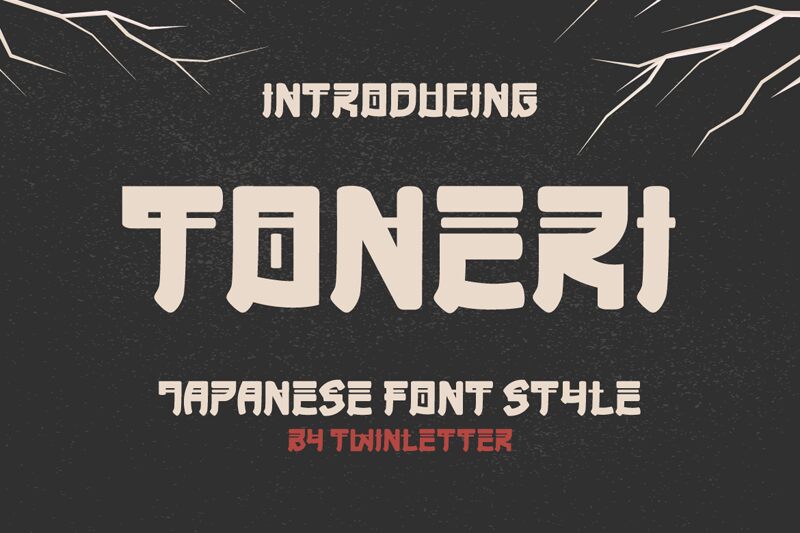
TONERI is a bold Japanese-style font designed by twinletter. Its unique foreign style makes it perfect for creative projects that need a touch of exoticism. This bold typeface is ideal for headlines, posters, branding, and packaging design. Its thick strokes give it an assertive and confident look that will make your message stand out. Use TONERI to add elegance and character to your designs, whether you're creating a modern logo or a traditional Japanese-inspired illustration. Its versatility makes it suitable for any project that needs an impactful and memorable font. Give your designs a touch of the East with TONERI!